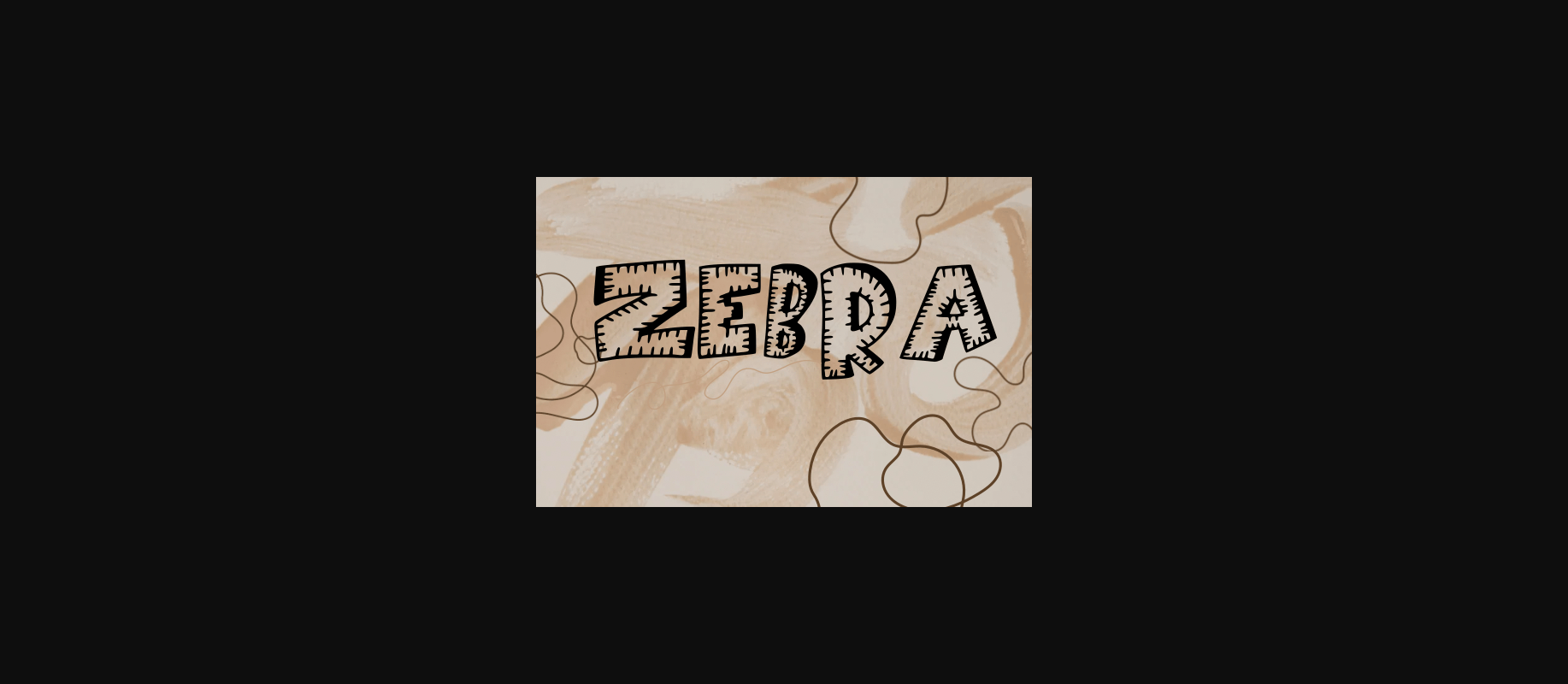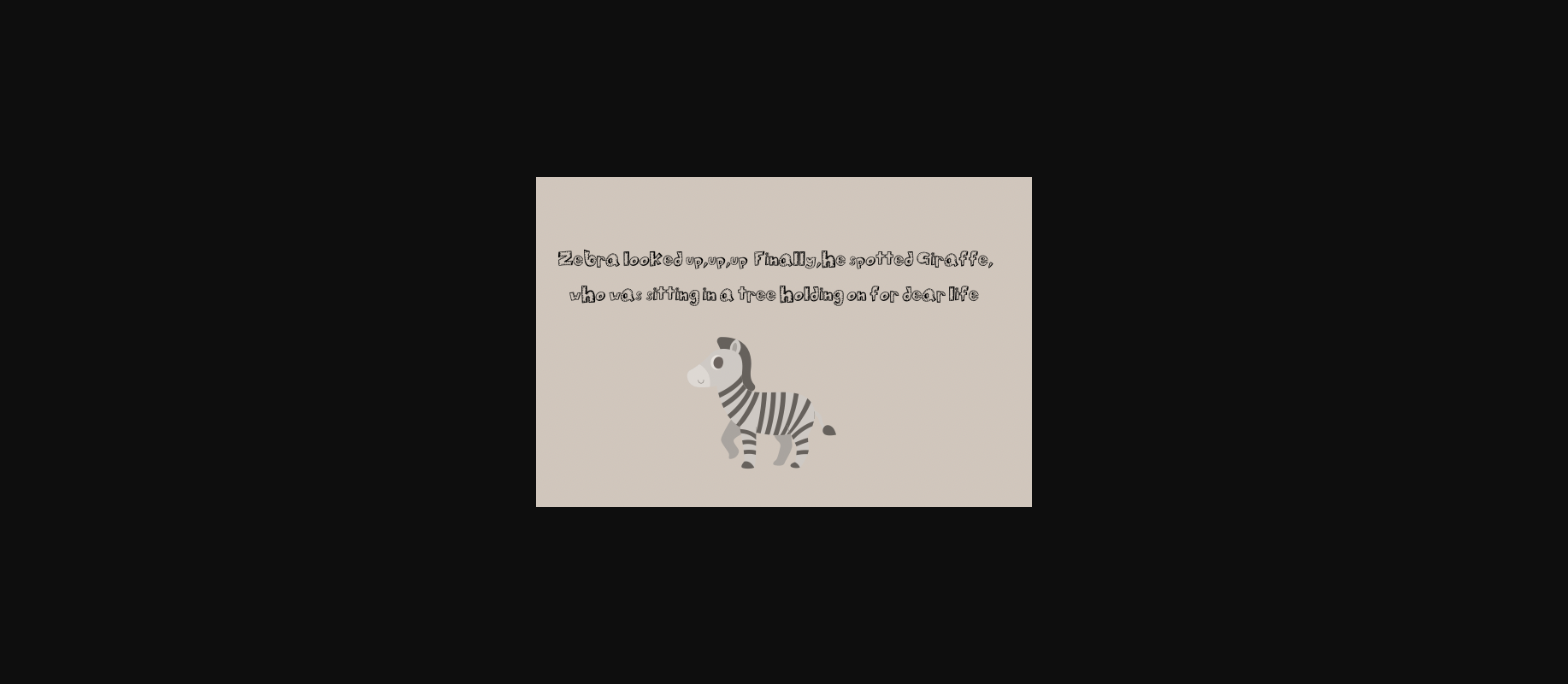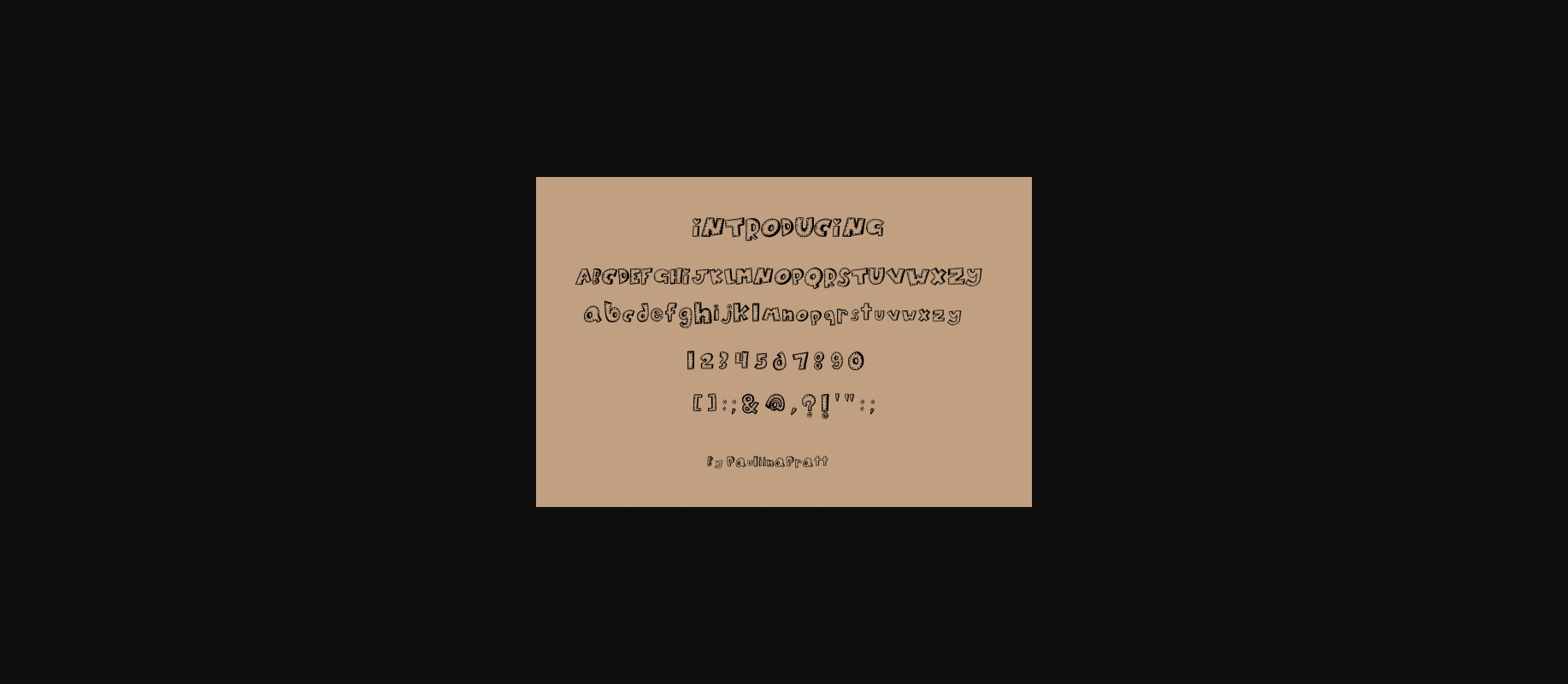
Zebra Font
About Zebra Font
Zebra is a fun and cheerful decorative font. It has beautiful and well-balanced characters which makes it suitable for a wide range of crafty ideas ?